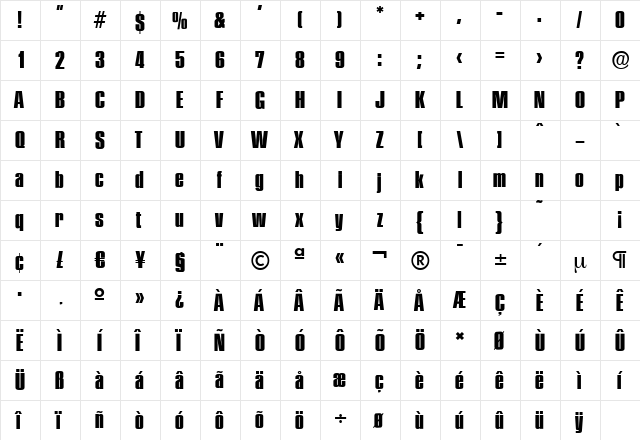
PlaketteSerial-Xbold Regular
Design Context for PlaketteSerial-Xbold Typeface
PlaketteSerial-Xbold takes a measured approach to typography — its balanced proportions and neutral character make it a reliable workhorse for both digital and print work. The heavy weight commands attention and anchors typographic hierarchies.